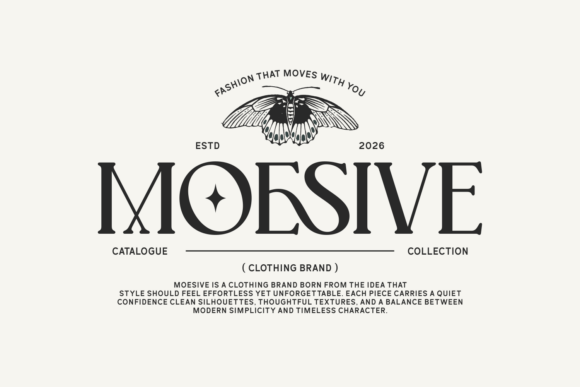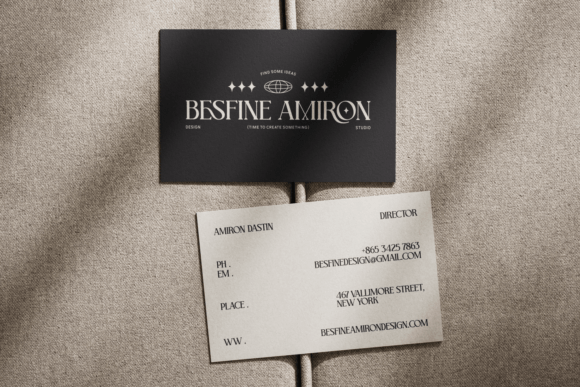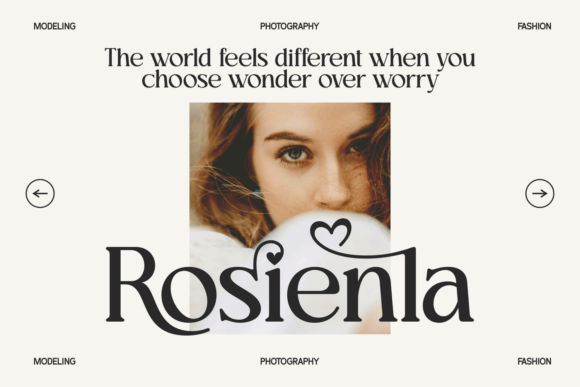
Introduction to Lowesa Romance Font
Lowesa Romance is an elegant modern serif typeface designed to bring beauty, sophistication, and timeless charm to your creative projects.
Inspired by classic editorial typography and refined with modern aesthetics, this typeface combines graceful curves, balanced proportions, and distinctive serif details This typeface works beautifully for branding, logos, fashion editorials, wedding invitations, magazine titles, luxury packaging, and social media graphics.